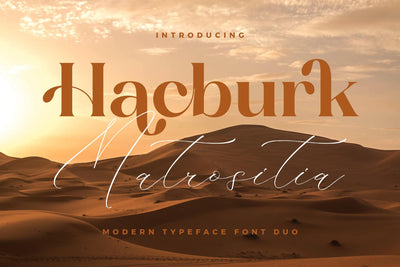
Hacburk Matrositia Font Duo
Proudly present Hacburk Matrositia Font Duo , created by Storytype,
A serif and script typeface that has own unique style & modern look.